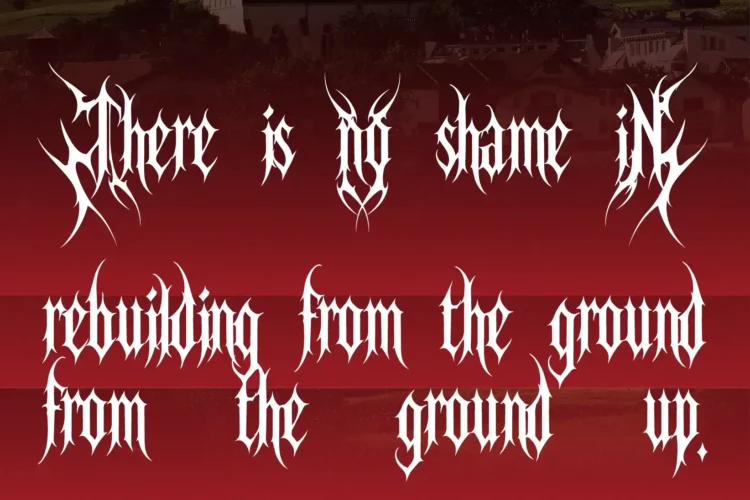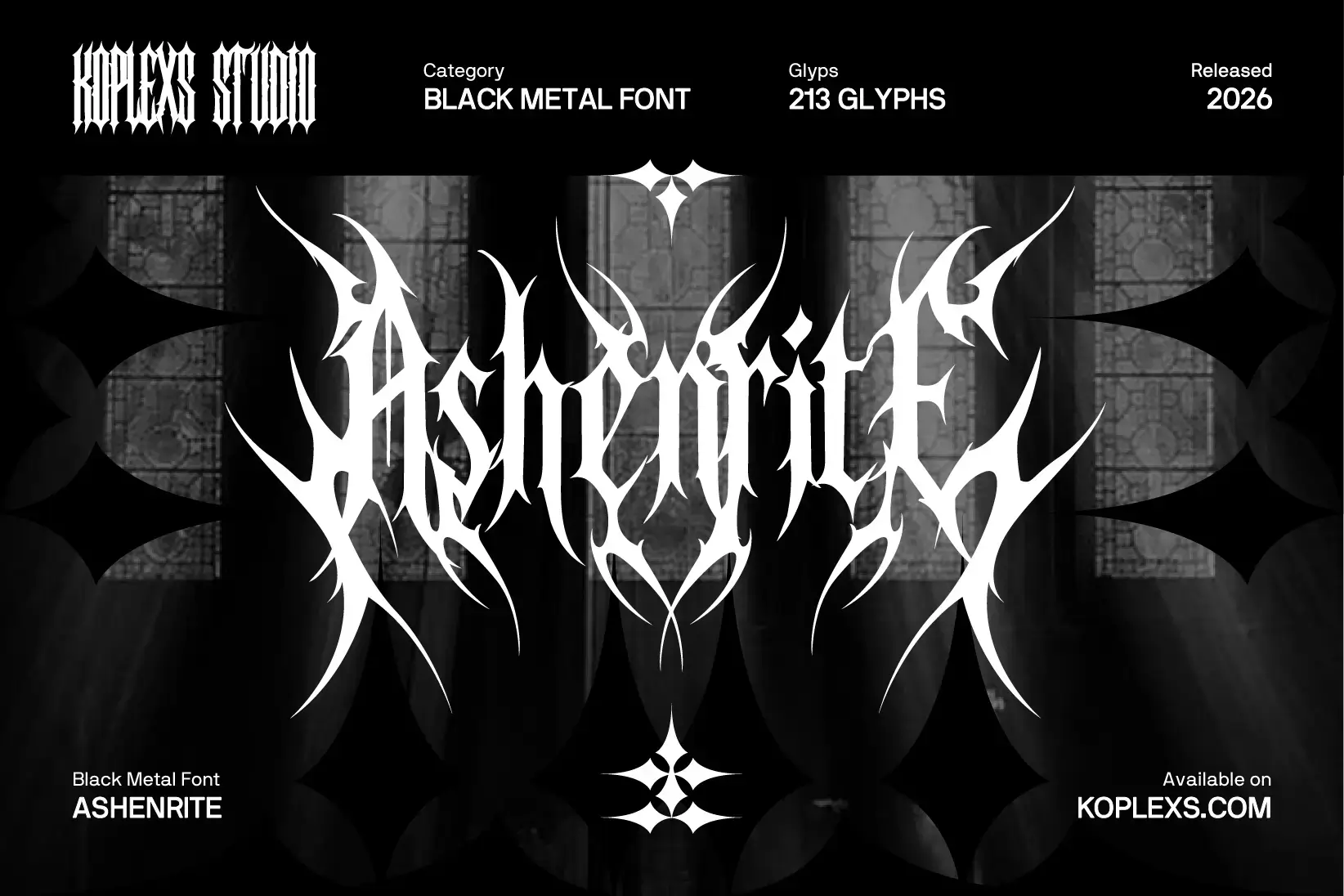
Ashenrite Font | Black Metal Blackletter for Band Logos
Ashenrite Font is a black metal font with tall, narrow letters, sharp tips, and sweeping details that resemble thorns. Its gothic structure gives each word a dark, commanding presence, while the extended strokes frame short names into dramatic compositions.
With the character of a blackletter font and the aggression of underground music artwork, Ashenrite suits designs that need a fierce visual identity. The contrast between simpler letters and elaborate decorative forms gives you room to shape the mood of your headline or band name.
• Ligatures & Alternate Fitures
Great for :
• Black metal, death metal, and heavy metal band logos.
• Album covers, vinyl sleeves, and single artwork.
• Concert posters and festival headlines.
• Band merchandise, T-shirts, and alternative streetwear.
• Horror titles, dark fantasy covers, and gothic branding.
Use this metal typeface at larger sizes, where its fine points and sweeping details have room to stand out. Pair it with simple supporting text to keep dates, track listings, and product information easy to read.
Ashenrite Font brings sharp blackletter forms and thornlike flourishes to band logos, album covers, and dark streetwear. This heavy metal font includes 213 glyphs, uppercase and lowercase letters, numbers, symbols, and decorative variations.